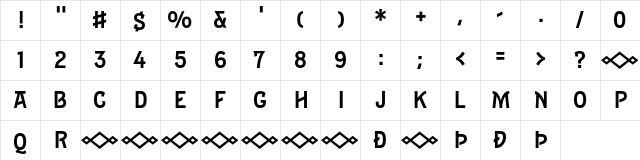
Epitaph Regular
Design Context for Epitaph Typeface
Epitaph offers clean, dependable letterforms without strong stylistic allegiance, making it a practical choice for designers who need flexibility.
Pro Tip: Use Epitaph in both headline and body roles to test its range before committing to a single application.